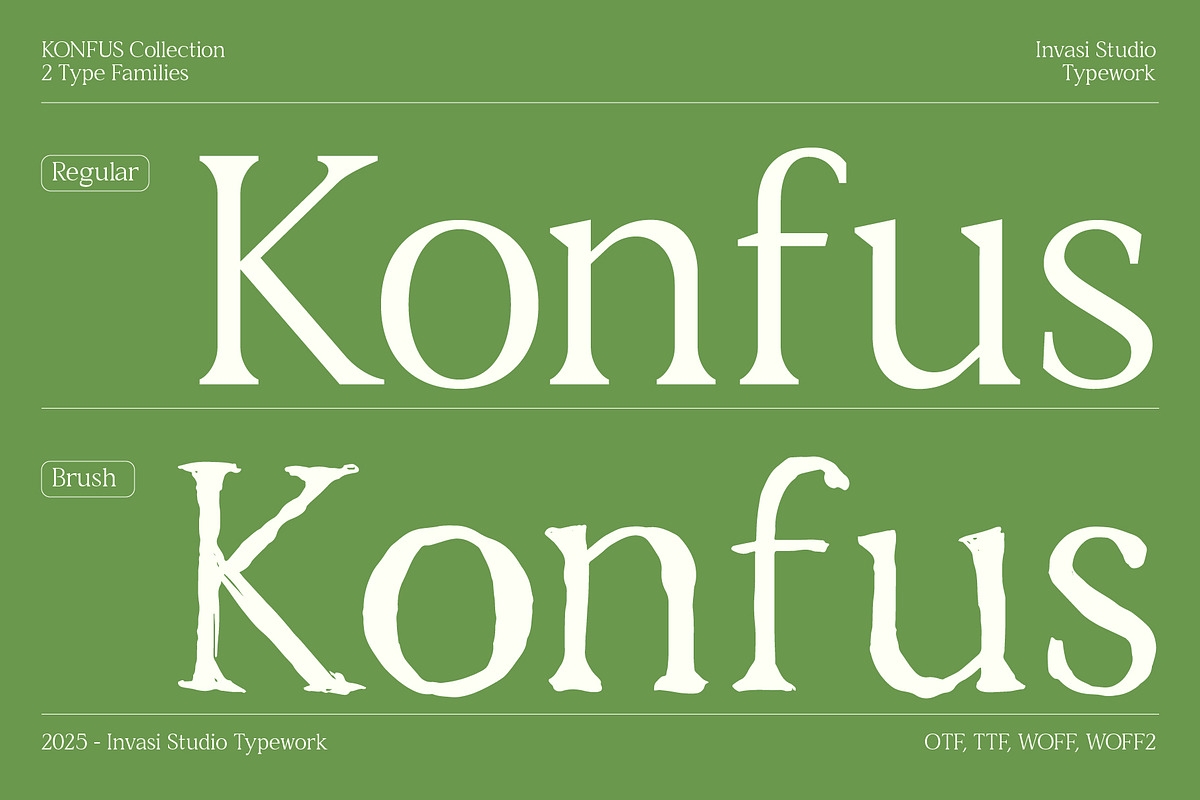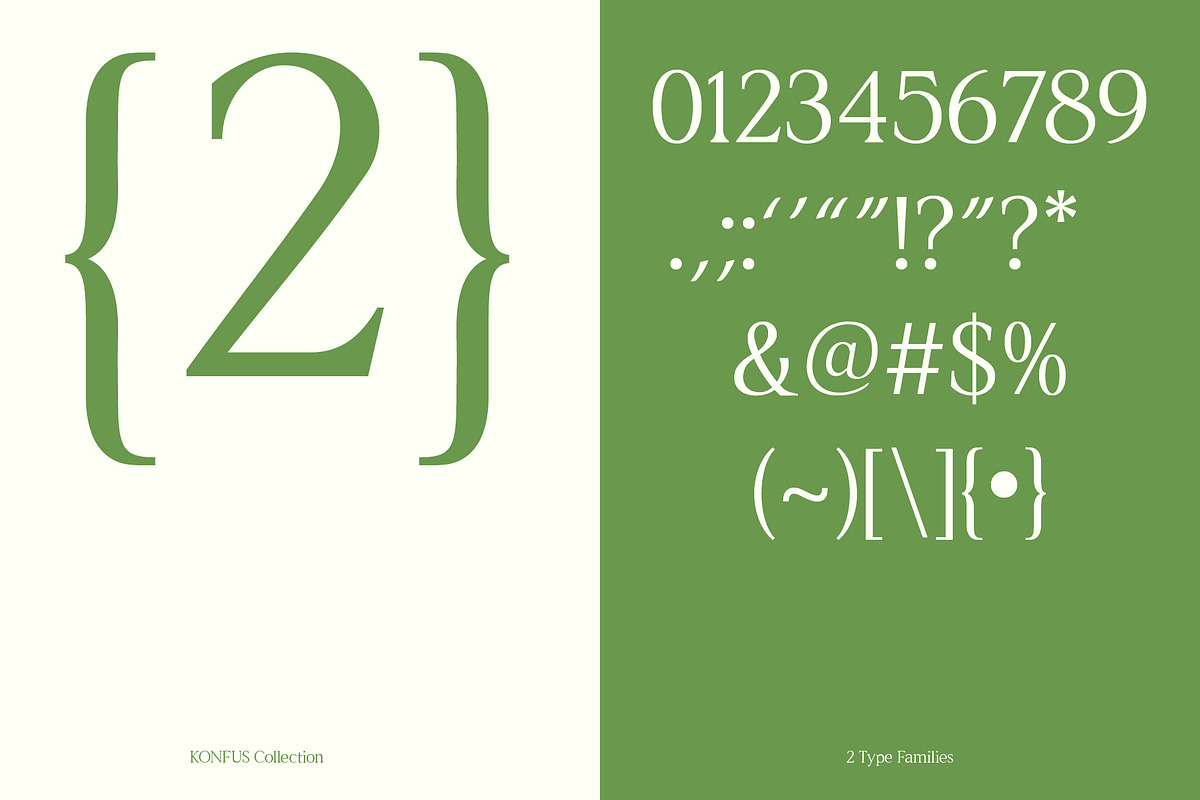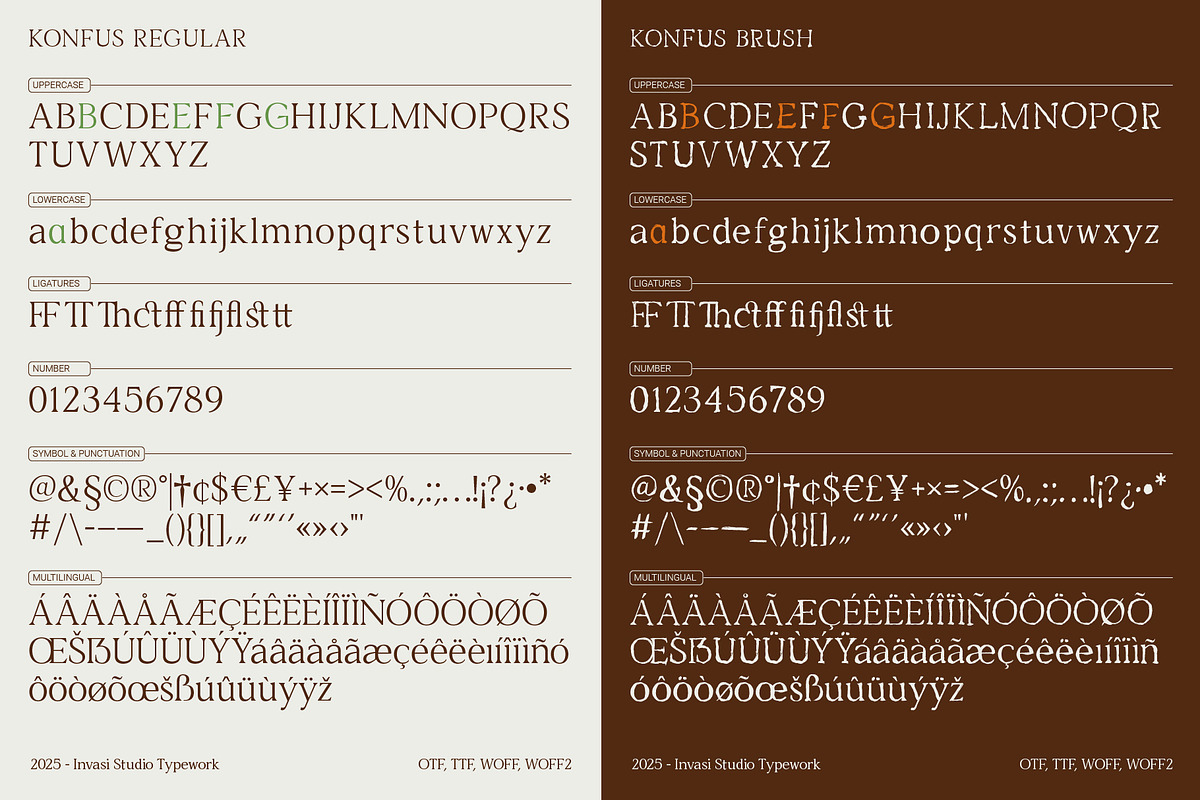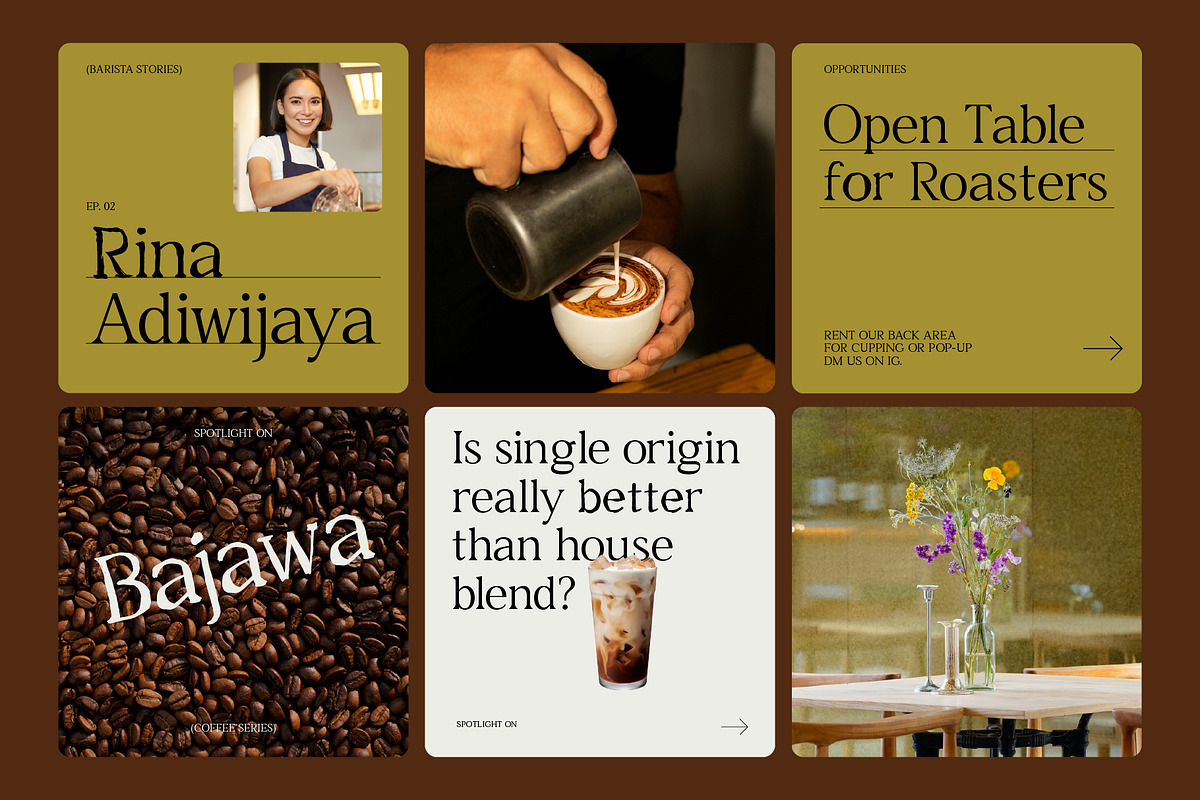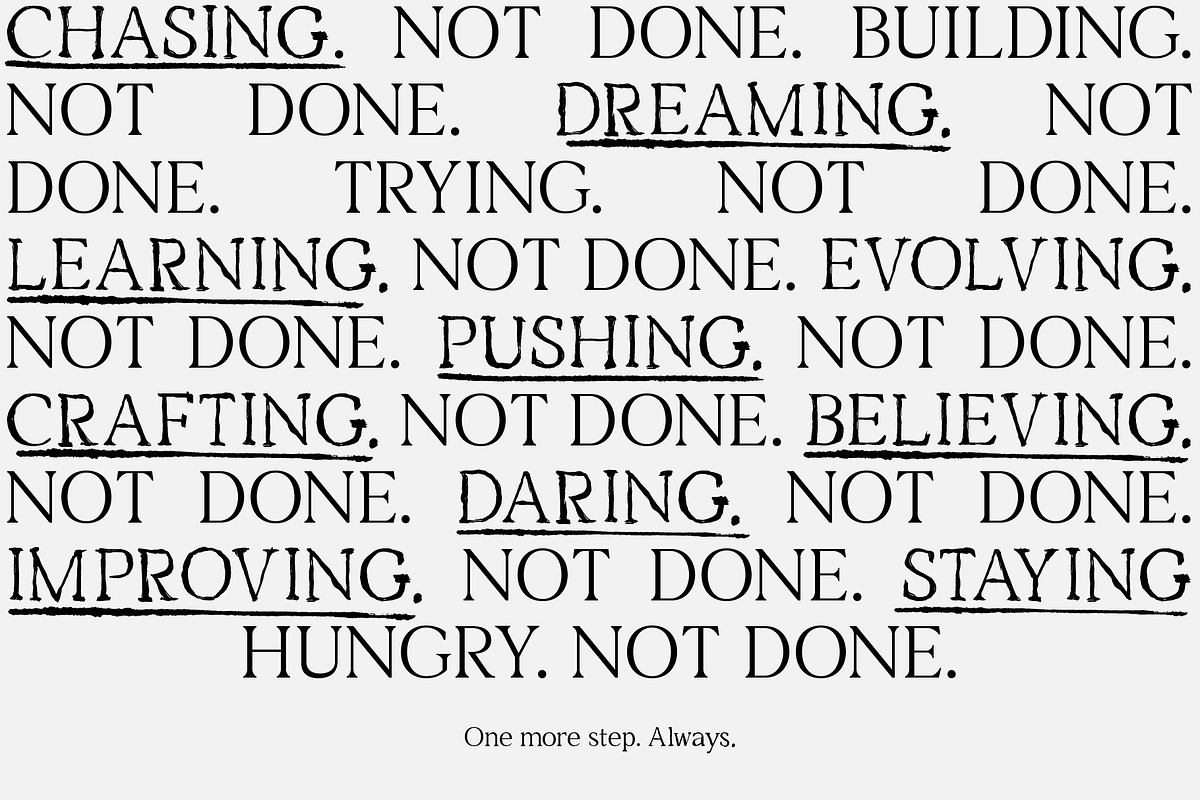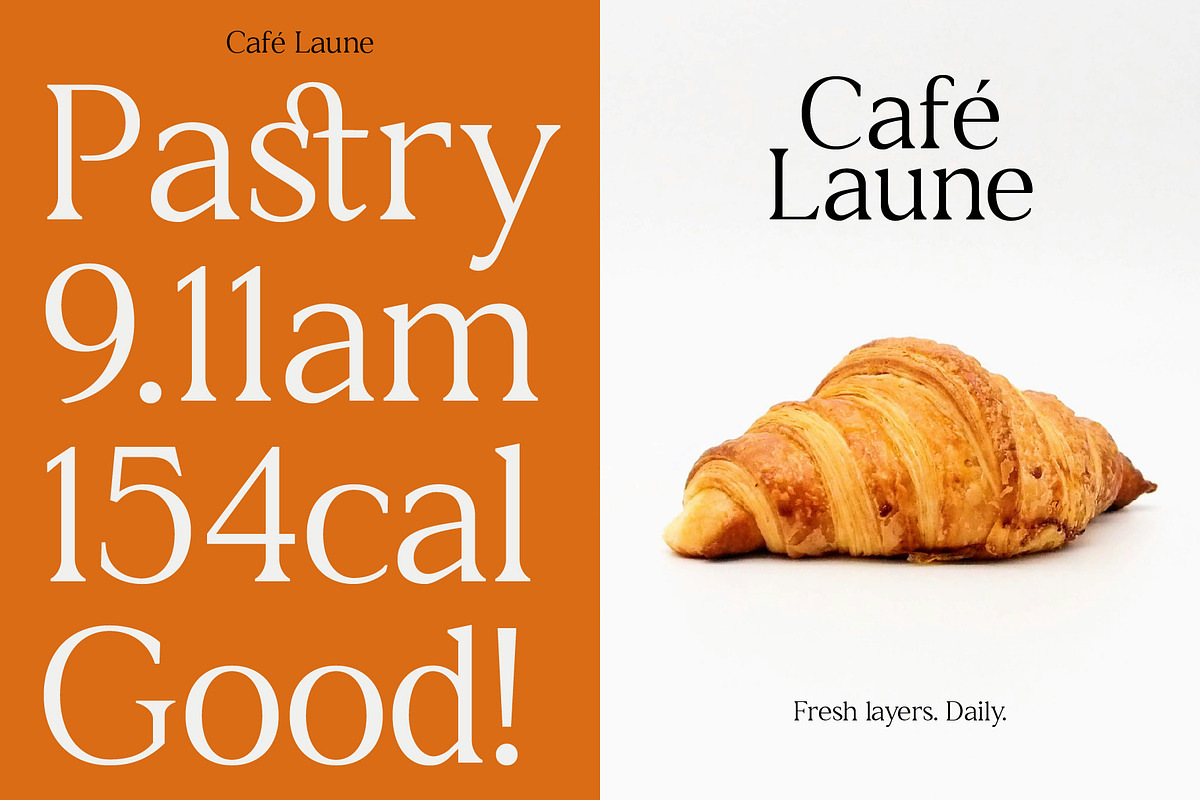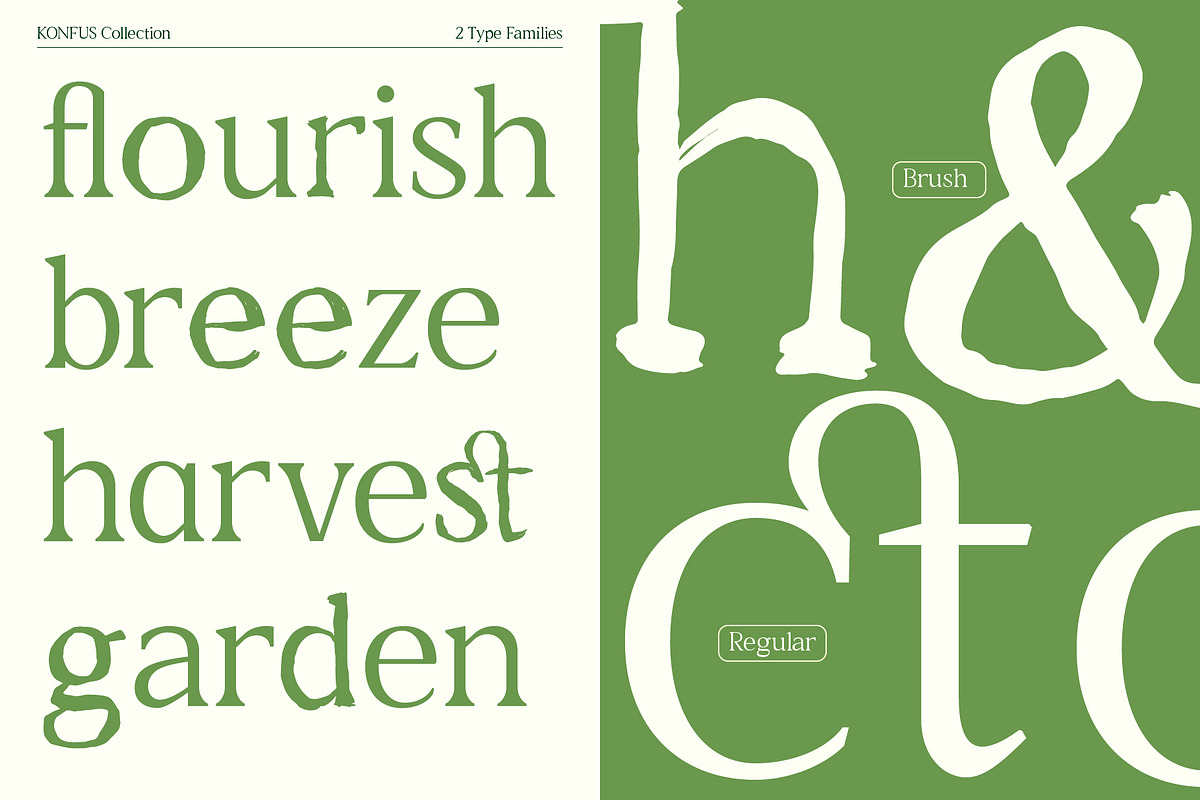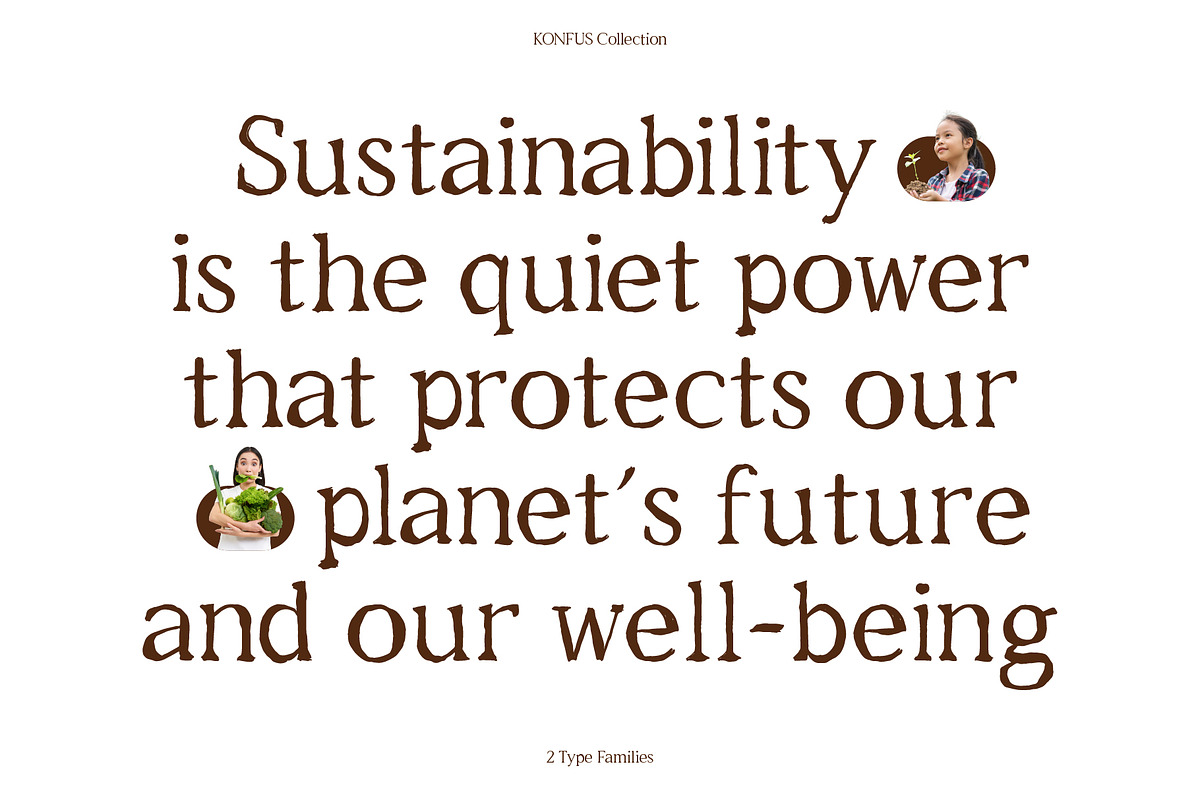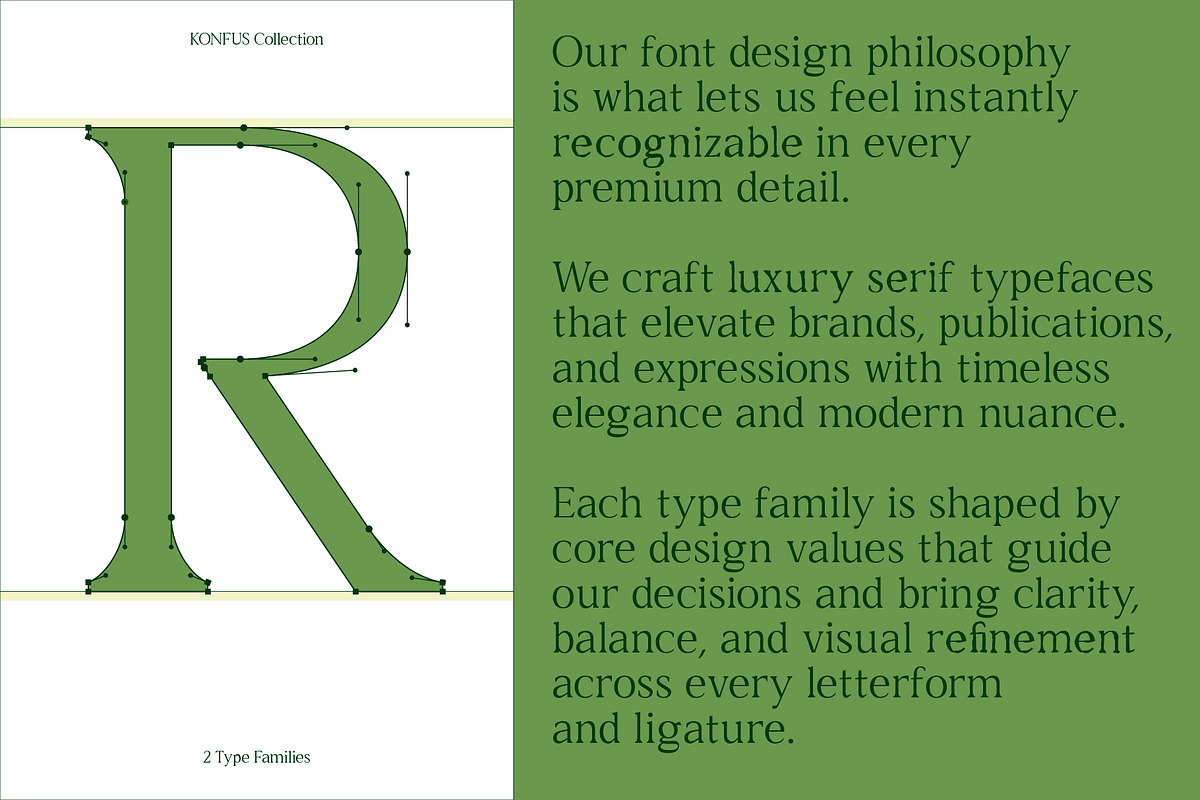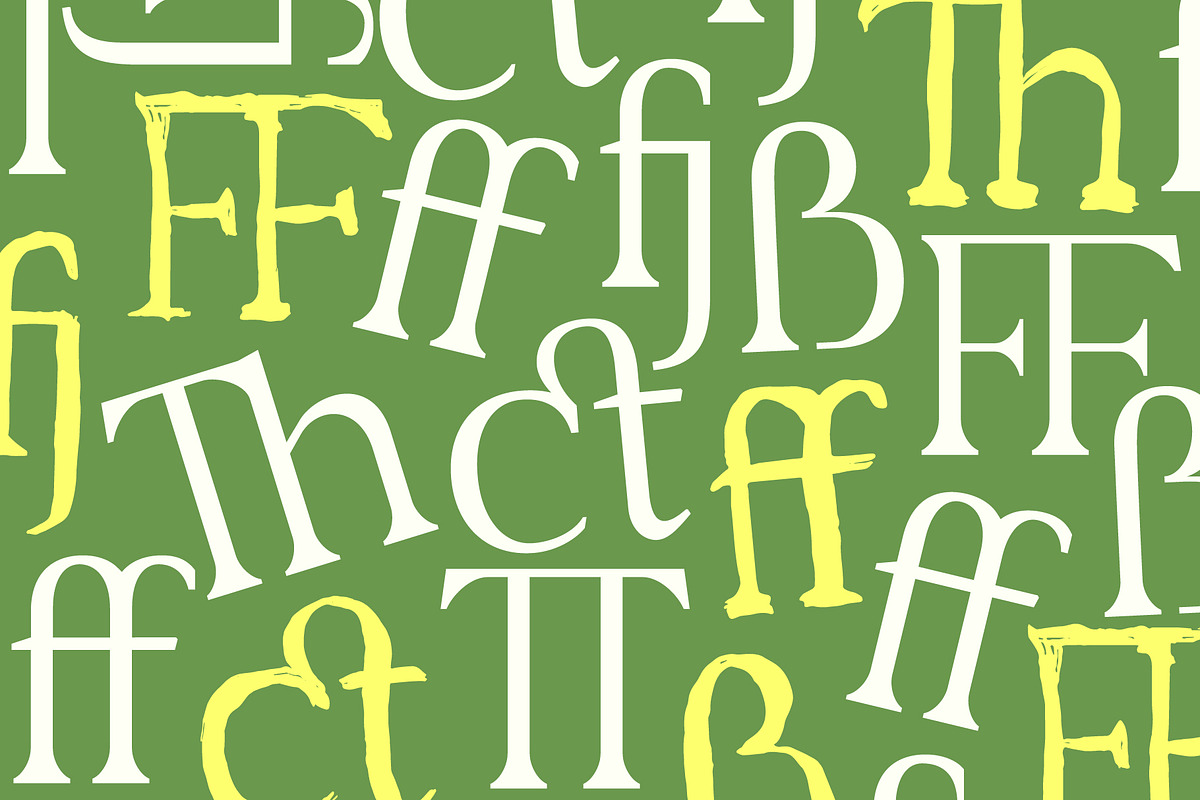
Konfus – Organic Modern Serif Duo
Konfus is a serif typeface collection with a split personality — refined and elegant on one side, raw and expressive on the other. Designed as a complementary font duo, Konfus Regular delivers timeless form with clean, modern proportions, while Konfus Brush adds an organic, ink-drawn texture that breathes life into your words.
Perfect for editorial titles, packaging, lifestyle branding, or pairing with minimalist photography, Konfus lets you balance structure and spontaneity in one system.
Both styles share the same letter skeleton, ensuring effortless pairing across Regular and Brush. Whether you’re typesetting a premium coffee label or an art-forward exhibition poster, Konfus adapts to your storytelling mood.
Features include: – Two distinctive styles: Regular & Brush – Matching proportions for seamless pairing – Extended multilingual support – Standard ligatures and stylistic alternates – Uppercase, lowercase, numerals, symbols & punctuation
Konfus is a versatile typographic duo for creatives who value both precision and personality.